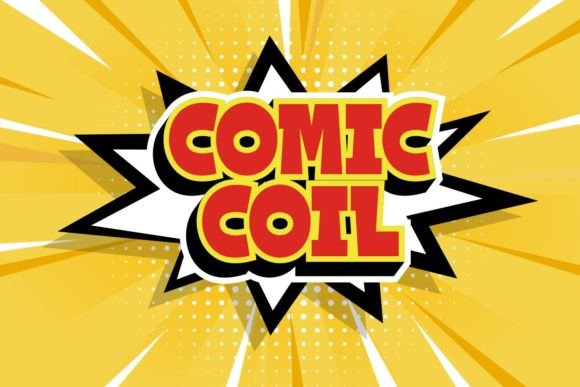
Introducing Comic Coil Font: The Ultimate Display Font for Bold and Playful Designs
In the world of typography, fonts play a crucial role in conveying the tone and personality of a brand or creative project. When it comes to making a statement, a bold and eye-catching font is essential. This is where Comic Coil Font comes in – a thick and chunky display font designed to add a touch of playfulness to your designs. In this article, we’ll dive into the features and benefits of Comic Coil Font, and explore how it can elevate your creative projects.
What is Comic Coil Font?
Comic Coil Font is a display font that boasts a unique, chunky design. Its bold and memorable appearance makes it perfect for headlines, titles, and any other text that needs to stand out. The font’s playful and charming set of characters is sure to capture the attention of your audience, regardless of the topic or industry.
Benefits of Using Comic Coil Font
- Bold and Memorable: Comic Coil Font is designed to make a statement. Its thick and chunky design ensures that your text will be noticed and remembered.
- Playful and Charming: The font’s playful and charming set of characters adds a touch of personality to your designs, making them more engaging and relatable.
- Versatile: Despite its bold design, Comic Coil Font is versatile and can be used on a wide range of projects, from posters and flyers to digital graphics and branding materials.
How to Use Comic Coil Font
Comic Coil Font is perfect for a wide range of creative projects, including:
- Posters and Flyers: Use Comic Coil Font to create eye-catching headlines and titles that grab attention.
- Branding and Logo Design: The font’s bold and playful design makes it perfect for logos and branding materials that need to stand out.
- Digital Graphics: Use Comic Coil Font to add a touch of personality to your digital graphics, such as social media graphics, blog posts, and website headers.
- Advertising: The font’s bold and memorable design makes it perfect for advertising materials, such as billboards, print ads, and online ads.
Tips for Using Comic Coil Font
- Use it Sparingly: While Comic Coil Font is bold and eye-catching, it’s best to use it sparingly to avoid overwhelming your design.
- Pair it with Other Fonts: Experiment with pairing Comic Coil Font with other fonts to create a unique and visually appealing design.
- Adjust the Size: Don’t be afraid to adjust the size of the font to create visual hierarchy and emphasis.
- Experiment with Colors: Try out different colors and textures to add depth and interest to your design.
Comic Coil Font is a bold and playful display font that’s perfect for creative projects that need to make a statement. Its unique and charming design, combined with its versatility and PUA encoding, make it a must-have font for designers and non-designers alike. Whether you’re looking to add a touch of personality to your branding materials, create eye-catching posters and flyers, or simply want to experiment with a new font, Comic Coil Font is the perfect choice.